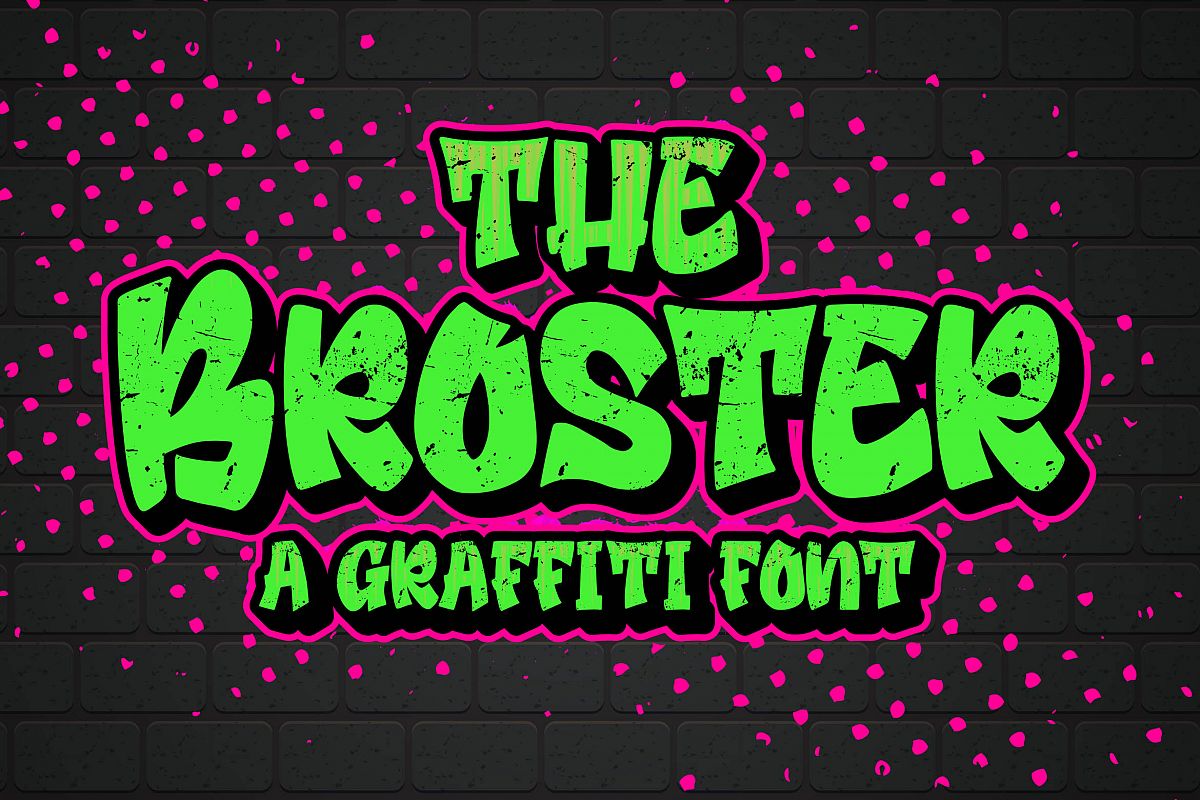
Introducing of our new product the name is Broster a Graffiti Font. Broster inspired by graffiti style this font is a fun theme very good for kids, comic, apparel, clothing, logotype and etc
MULTILINGUAL ACCENT :ØÆøæ¢ÐŒœÁĂÂÀÄĄÅÃǼĆČÇĈĊĎÉĔĚÊËĖÈĘĞĜĢĠĤÍĬÎÏİÌĮĨĴĶĹĽĻĿŃŇŅÑÓŎÔÖÒŐǾÕŔŘŖŚŠŞŜȘŤŢÚŬÛÜÙŰŲŮŨẂŴẄẀÝŶŸỲŹŽŻáăâäàąåãǽćčçĉċďéĕěêëėèęğĝģġĥíîïìįĩĵķĺľļŀńʼnňņñóŏôöòőǿõŕřŗśšşŝșťţŭûüűùųůũẃŵẅẁýŷÿỳźžż
FEATURES :- Uppercase